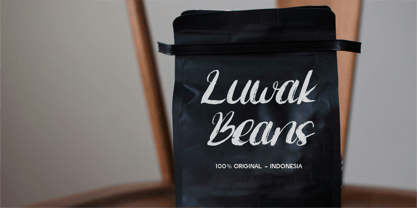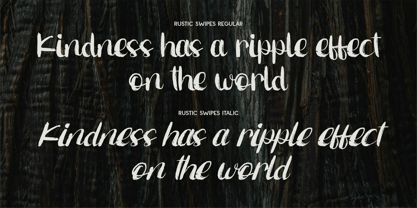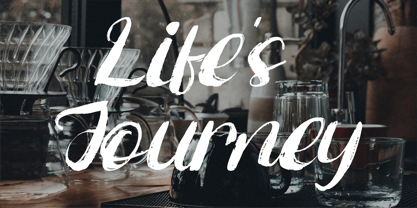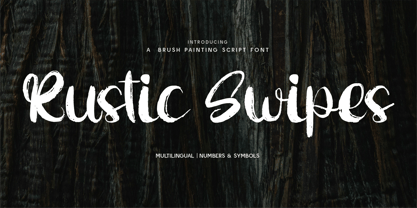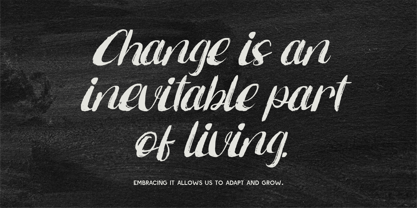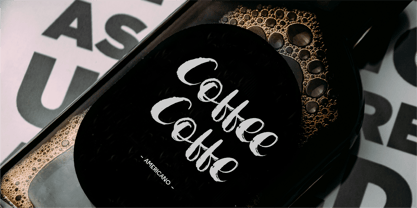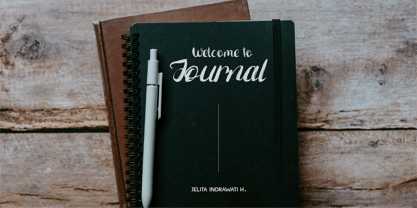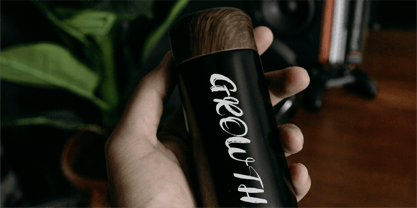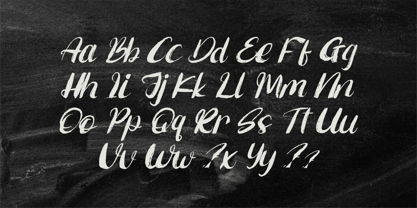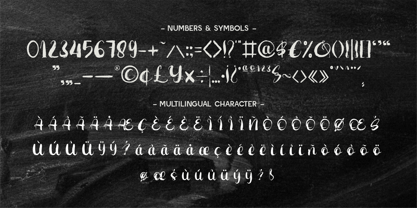
CF Rustic Swipes
by Indotype
The CF Rustic Swipes Font Family was designed by Gilang Mei Nugraha, Frederik Aristaputra and published by Indotype. CF Rustic Swipes contains 2 styles and family package options.
Rustic Swipes – A Bold & Textured Brush Script Font
Unleash the power of handcrafted artistry with Rustic Swipes, a brush painting script font that blends bold strokes with rugged authenticity. With its natural brush textures and expressive movement, this font is perfect for projects that demand a raw, organic, and high-energy feel.
Ideal for branding, posters, apparel, packaging, social media, and creative projects, Rustic Swipes brings an adventurous, hand-painted look to any design. Whether you're crafting a grunge-inspired visual, rustic branding, or bold artistic statement, this font delivers maximum impact with a handcrafted touch.
Why Choose Rustic Swipes?
🖌 Authentic Brush Texture: Realistic strokes with natural, rugged edges.
⚡ Energetic & Bold: A dynamic script that adds movement and personality.
🎨 Versatile & Expressive: Perfect for branding, packaging, posters, and streetwear.
🌍 Multilingual Support: Comes with numbers, symbols, and extensive language compatibility.
- Standard Character A-Z, a-z, 0-9, Punctuation & symbols
- Regular and Italic